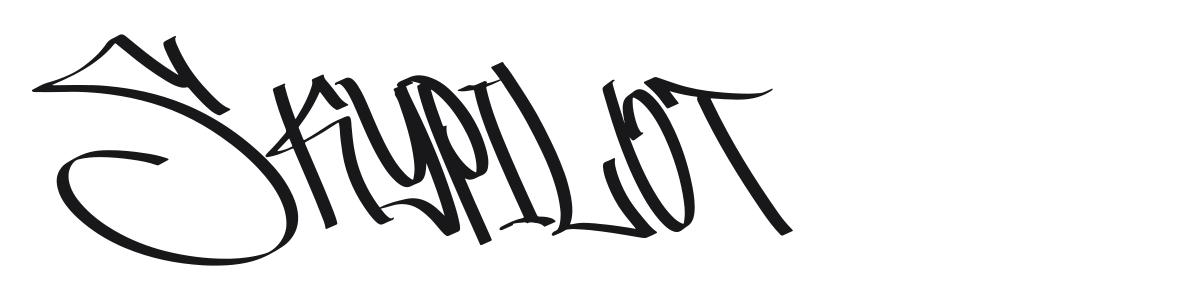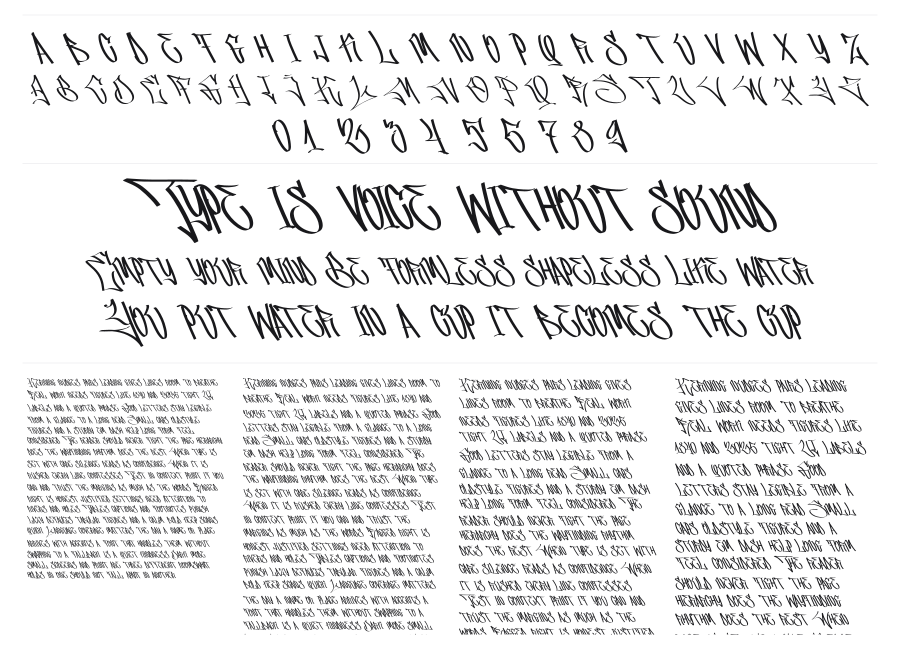
Skypilot
by Ferry Ardana Putra · Website
Skypilot is a wild-style graffiti display font from Faptype with heavy, interlocking strokes and an extreme italic lean. Sharp spikes and razor-thin hairlines contrast against thick stems to create the dense, layered energy of hand-sprayed lettering. Built for large-scale use where raw visual impact matters more than legibility.